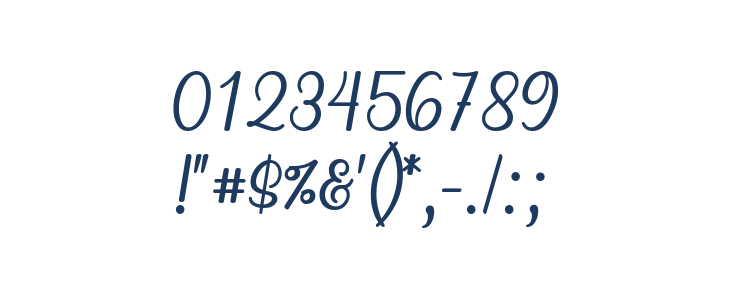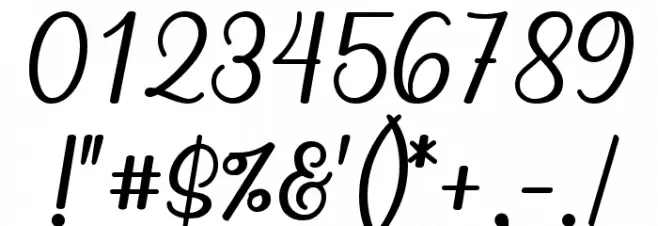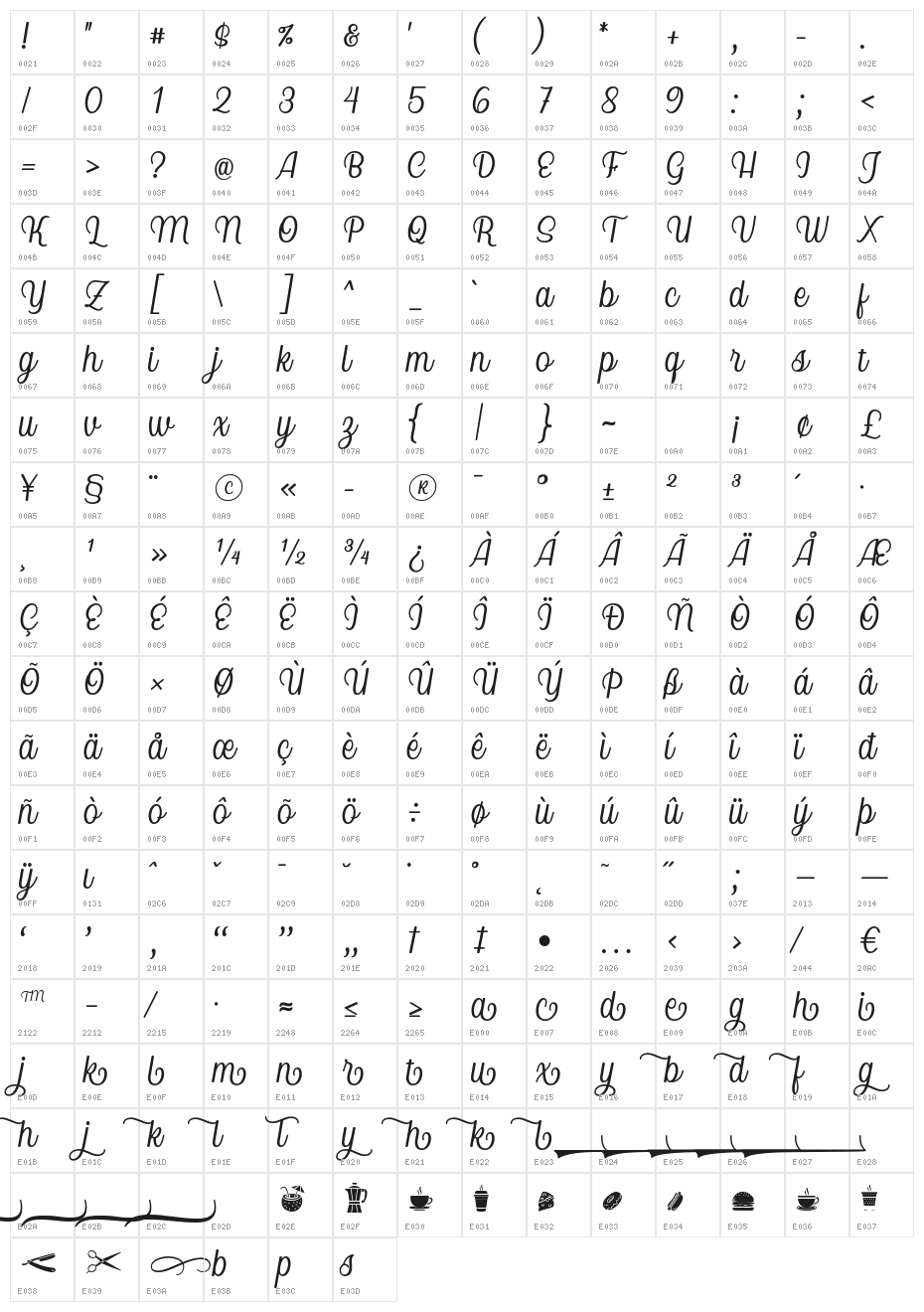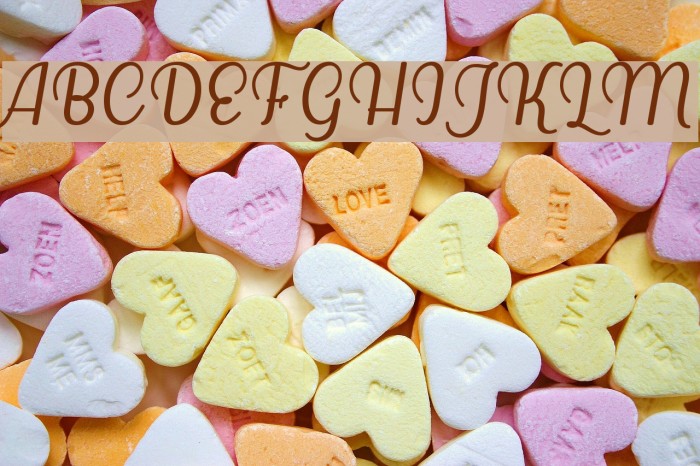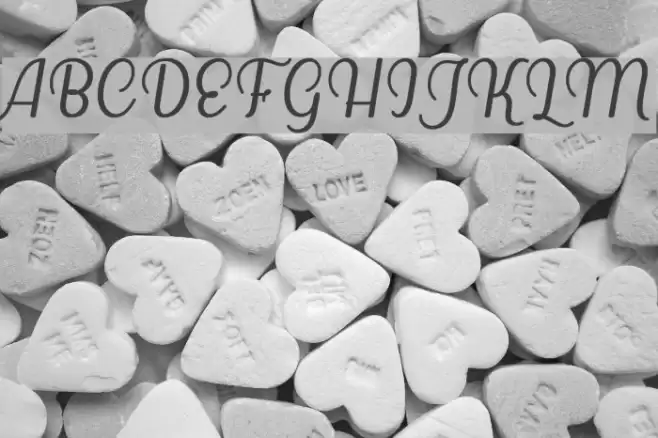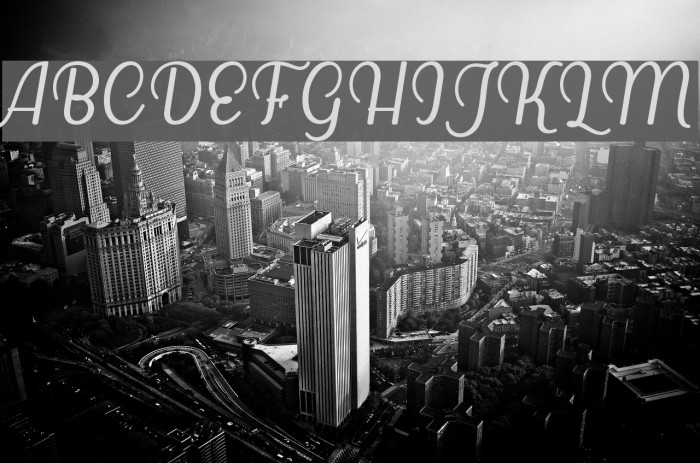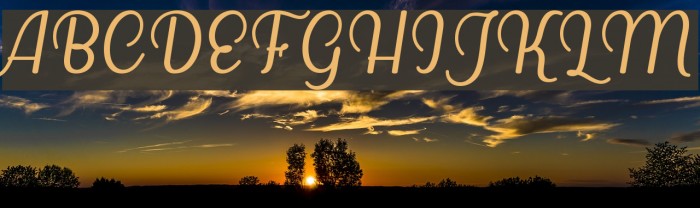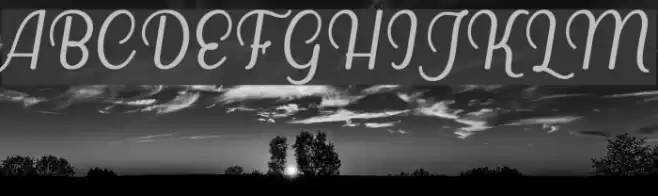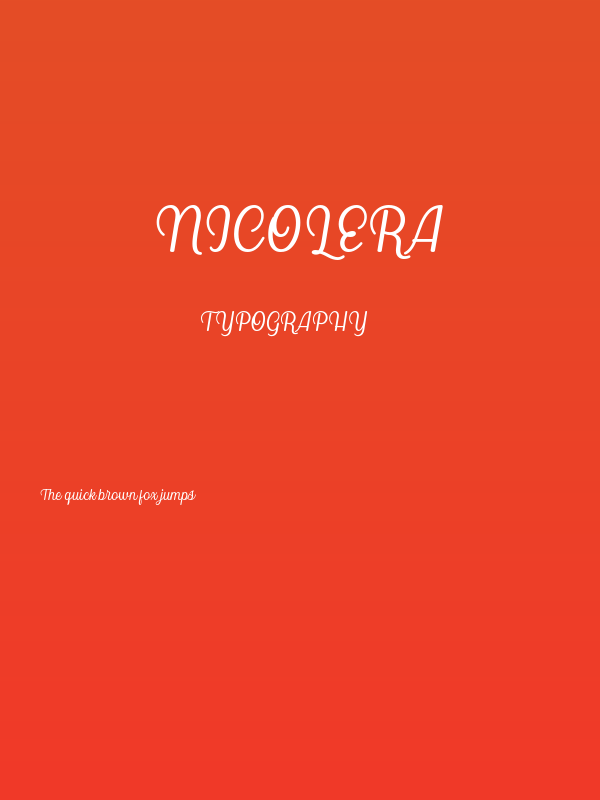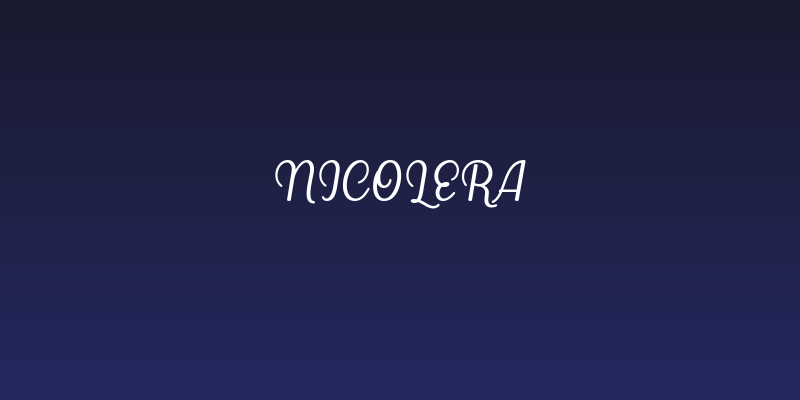
Nicolera Font
Nicolera Description
This font features a flowing, cursive style that exudes elegance and sophistication. The uppercase letters are characterized by their smooth, looping strokes, while the lowercase letters maintain a consistent, connected script. The numerals are crafted with a similar fluidity, ensuring a cohesive look across all characters. Special characters are designed with the same attention to detail, making them seamlessly integrate with the rest of the font. The overall appearance is both classic and modern, making it versatile for various design needs. The font's graceful curves and balanced proportions make it ideal for projects that require a touch of refinement and style.
| Proposed Projects | Ideal for wedding invitations, branding, elegant packaging, and editorial design. |